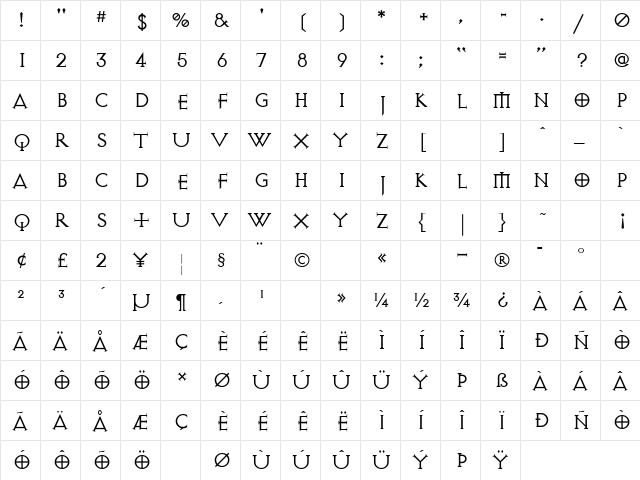
Exocet Light
Design Context for Exocet Typeface
Exocet takes a measured approach to typography — its balanced proportions and neutral character make it a reliable workhorse for both digital and print work. The delicate stroke weight brings airiness and refinement to layouts.